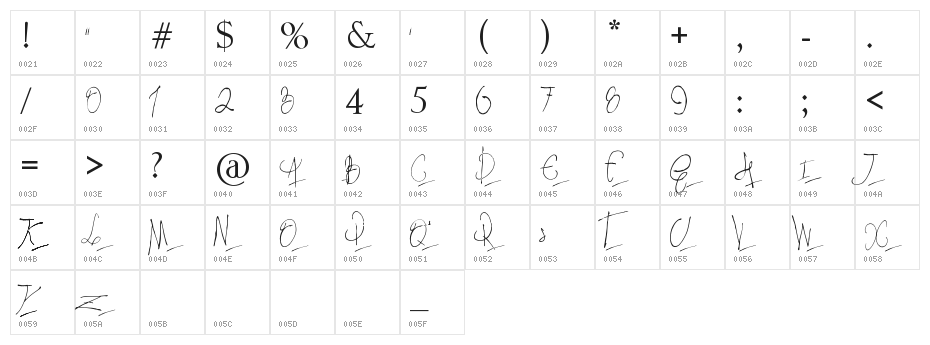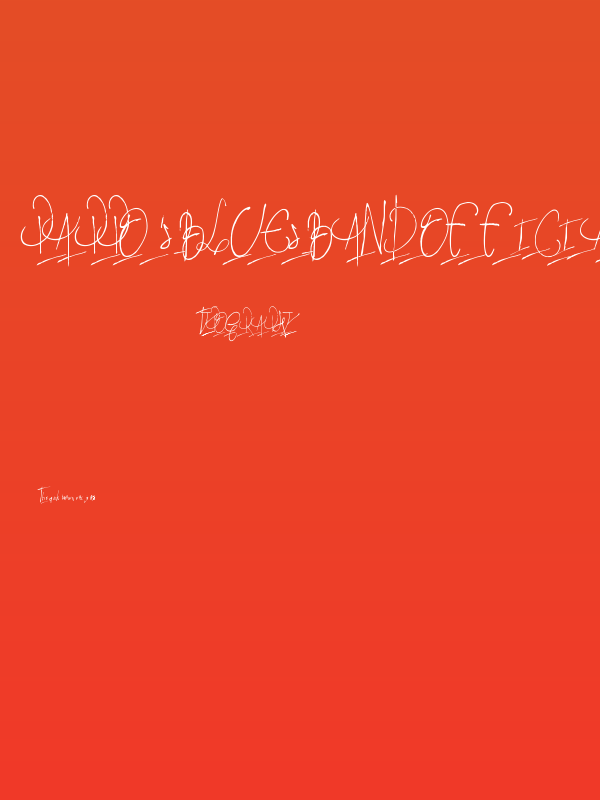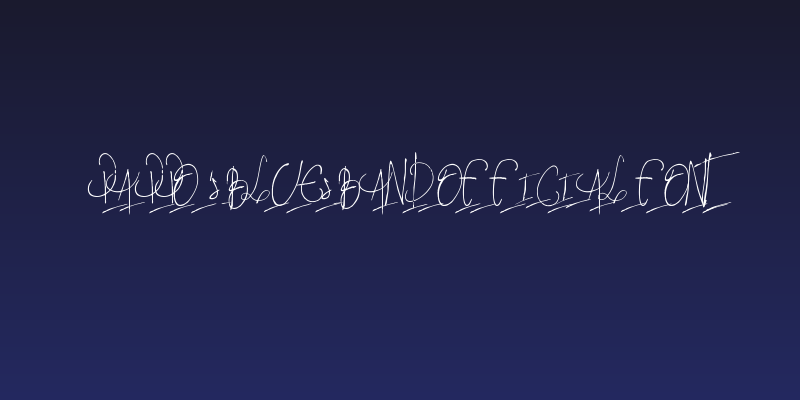
Pappo's Blues Band Official Font Font
Pappo's Blues Band Official Font Description
This font features a highly expressive and artistic style, characterized by its irregular, hand-drawn appearance. The uppercase letters are bold and dynamic, with exaggerated curves and strokes that give them a sense of movement and energy. The lowercase letters maintain this artistic flair but are slightly more restrained, offering a balance between readability and style. The numbers are similarly expressive, with unique forms that complement the overall aesthetic. Special characters are creatively designed, adding to the font's distinctive personality. This font is ideal for projects that require a bold, artistic touch, such as music album covers, posters, or branding for creative industries.
| Overall Style | Artistic, Expressive |
| Proposed Projects | Ideal for music album covers, artistic posters, and creative branding. |